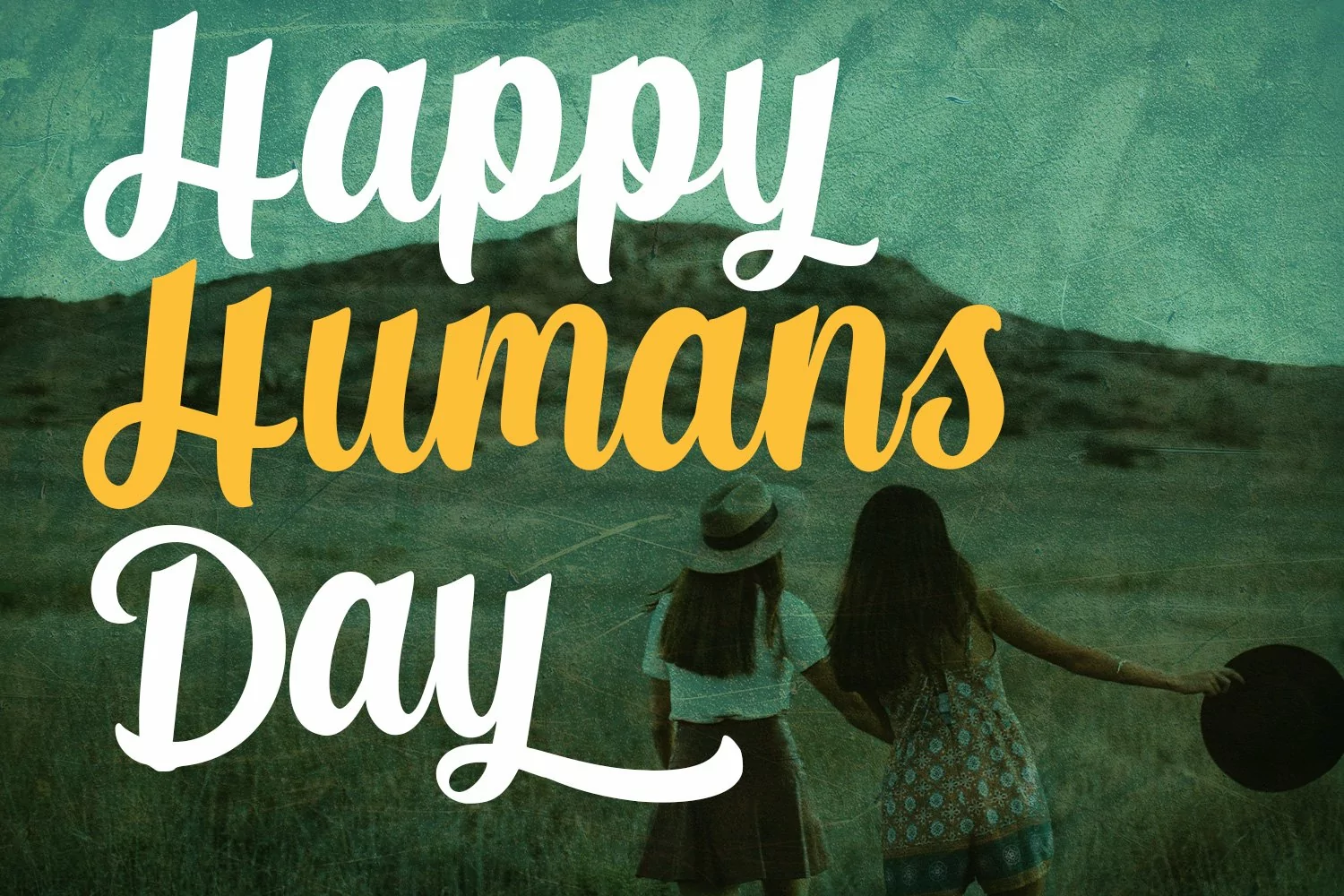
Faleringo is a retro script font. With bold contrast stroke, fun character with a bit of ligatures and alternates. To give you an extra creative work. Faleringo font support multilingual more than 100+ language. This font is good for logo design, Social media, Movie Titles, Books Titles, a short text even a long text letter and good for your secondary text font with sans or serif. Make a stunning work with Faleringo font.
Faleringo